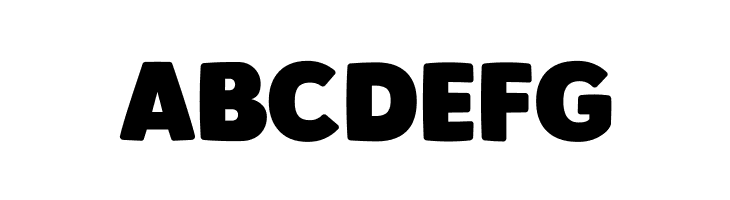
A whimsical and decorative font with celestial motifs and varied stroke thickness.
A rugged, textured font with a vintage, typewriter-like appearance.
A bold, rounded font with a playful and approachable style.